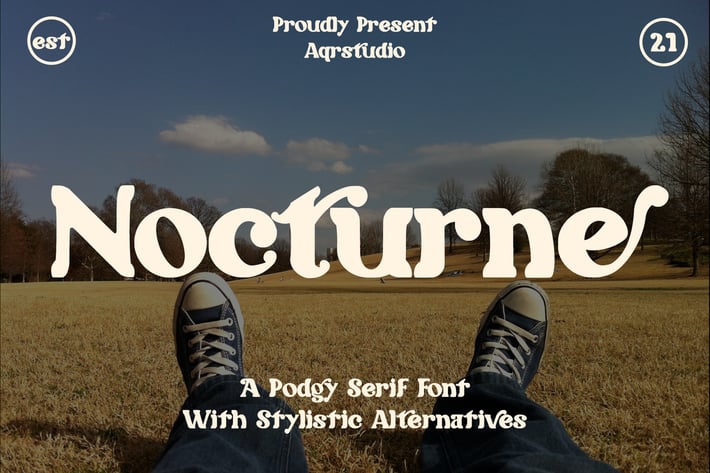
Nocturne - Podgy Serif Font
Nocturne - Podgy Serif Font contains a lowercase, uppercase, symbol, and also supports multi-language. There’s a lot of ligature in this font. Nocturne - Podgy Serif Font also comes with ligatures, stylistic alternates and many more.
this font suitable for fashion, branding, catalog and other design that you want.